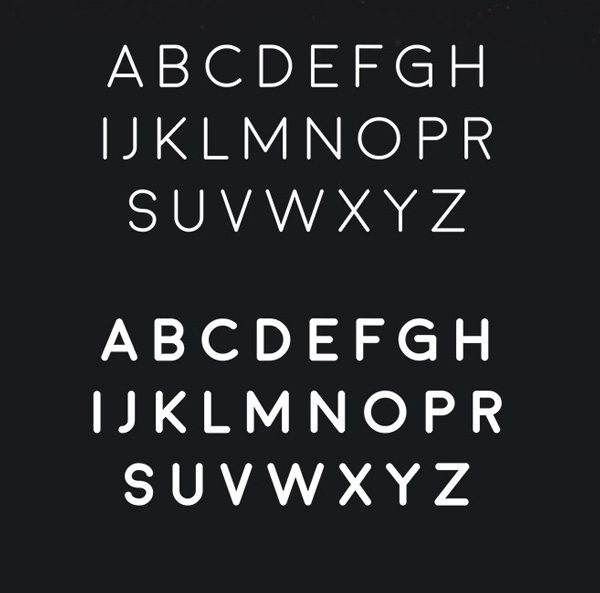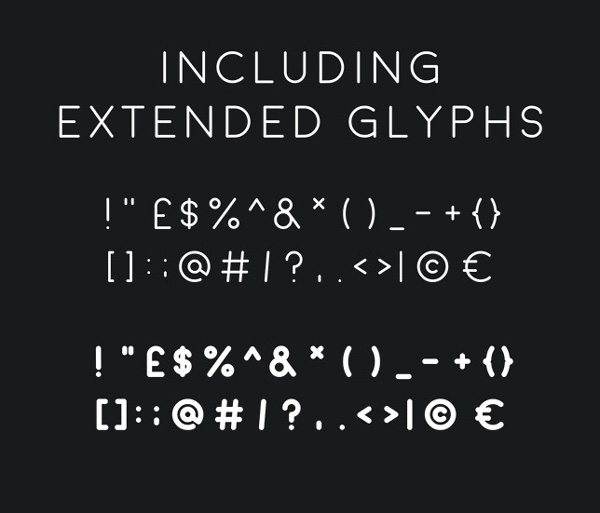
Moon
Free Font Of The Day #116 – Font Moon
Font Moon
The font  is a new FREE rounded, simple, space-ie typeface family with both thin and bold variations, free for personal use only.  Designed by Jack Harvatt.